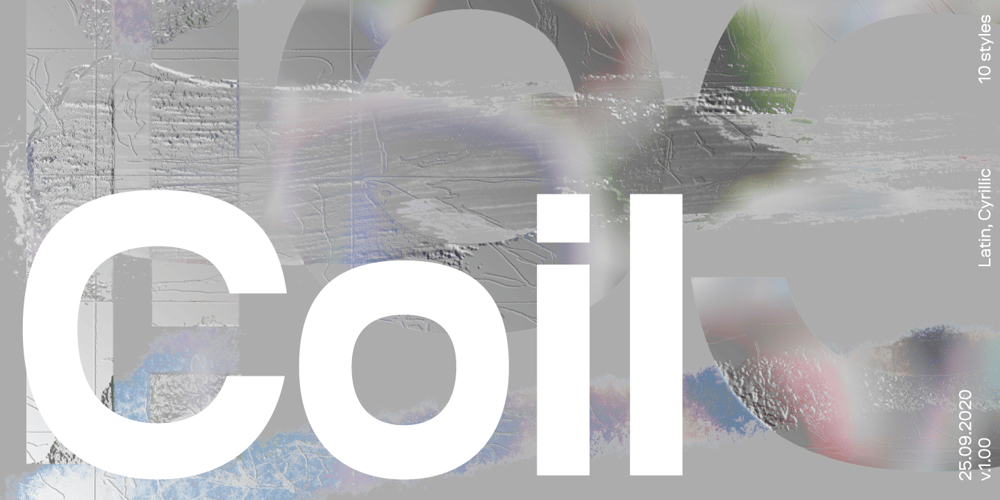
Coil Font Family was designed by Gayaneh Bagdasaryan, Vyacheslav Kirilenko and published by Brownfox. Coil contains 8 styles and family package options. Coil feels comfortable like a well-worn pair of shoes. It could easily pass for an assertive industrial European sans serif of the early 1960s with its slight reverse contrast, monotonous proportions, and squared-off curves, if not for its less predictable side. What appears initially as ellipses upon closer inspection turns out to be irregular shapes, closer to an inverted egg than an oval. The s looks topsy-turvy with its higher curve that is larger than the lower. Some terminal strokes overhang the bowl (as in the a), others open flat (as in the Q, the f, the j, and the t). The resulting effect shakes up this seemingly “retro” face just to make it new. Our midcentury recollections are slightly distorted and reinterpreted by this ironic typeface making it fresh while deceptively cozy and familiar.Coil’s high x-height and even texture make it readable even in small sizes despite its tight apertures. Available in four weights with their italics, with two sets of figures, fractions, and alternates for Extended Latin and Cyrillic scripts.Designed by Vyacheslav Kirilenko and Gayaneh Bagdasaryan, 2020-21.